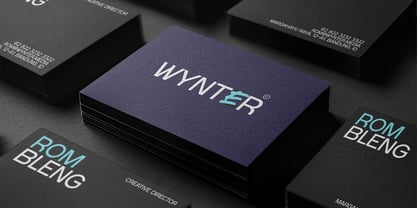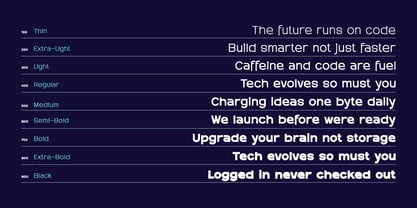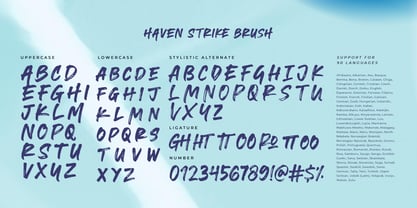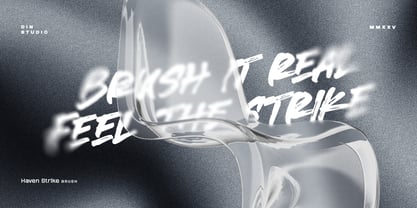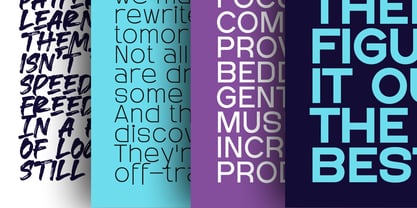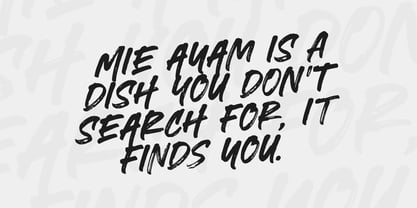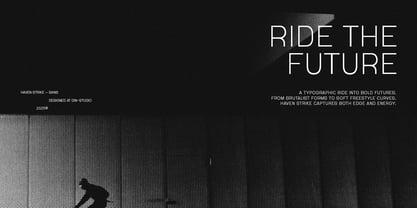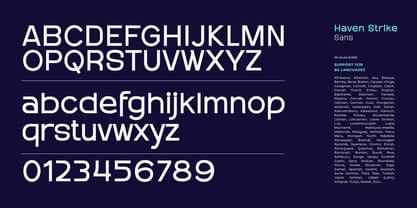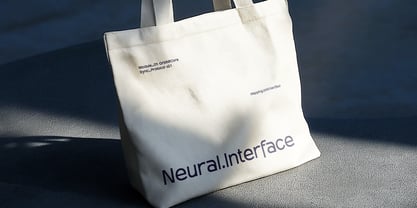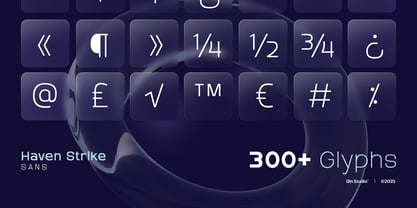
Haven Strike
by Din Studio
The Haven Strike Font Family was designed by Donis Miftahudin and published by Din Studio. Haven Strike contains 10 styles and family package options. More about this family
Haven Strike is a dynamic font duo that blends expressive brushwork with modern typographic precision. The brush font, crafted entirely in bold uppercase letters, captures an authentic, hand-painted feel with energetic strokes that evoke the raw spirit of brush lettering. Paired with a sleek sans serif companion featuring subtle futuristic details, Haven Strike offers perfect harmony between organic expression and contemporary design. This duo delivers a striking, versatile typographic toolkit that commands attention while maintaining a modern edge. In addition, enjoy the features here.
Features:
• Multilingual Supports
• Numerals and Punctuations
Haven Strike fits in name cards, branding, packaging, posters, headlines, editorial designs, and many more designs. Find out more ways to use this font by taking a look at the font preview.